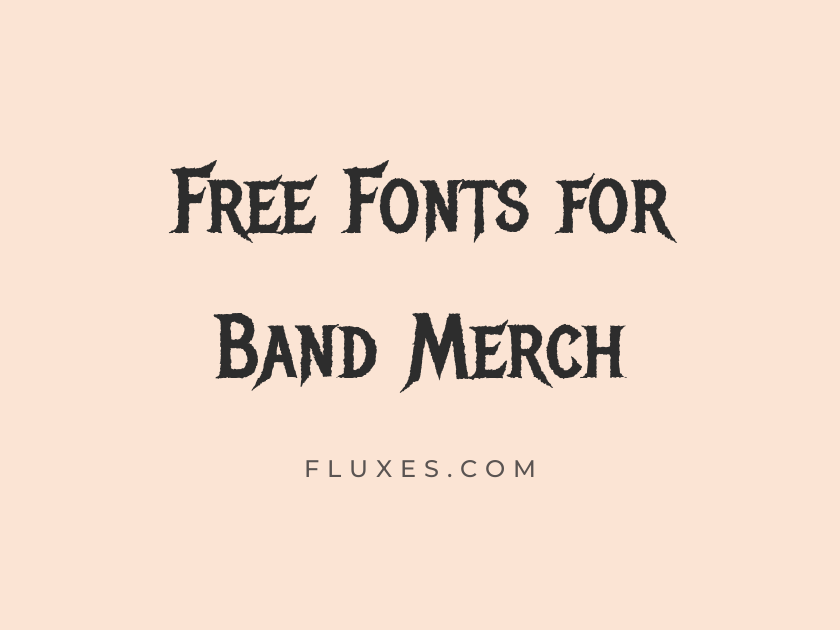
70 Best Free Fonts for Band Merch
Merch design lives or dies on typography. A killer band logo or tour tee starts with a font that can carry a mood in a single glance, whether that mood is blackened aggression, garage-rock grit, folk warmth, or neon synth nostalgia. The good news for anyone building shirts, patches, posters, and vinyl covers on a budget is that some of the best free fonts for band merch live right inside Google Fonts, ready to license for commercial use without a single dollar changing hands.
What follows is a wide sweep across genres and eras: metal and blackletter display faces, horror-movie novelty type, punk stencils, bold poster sans serifs built for band-name lockups, retro scripts for garage rock and soul revivals, handwritten faces for folk and indie acts, and futuristic display type for synth and electronic projects. Mix, match, and pull whichever fits the sound.
Metal Mania
Metal Mania earns its name honestly, with jagged, hand-lettered strokes that look scratched into a leather jacket. It works best big, bold, and alone as a band-name lockup on a shirt front rather than in body copy, where it turns muddy fast.
A genuine German blackletter revival, UnifrakturMaguntia brings old-world gothic weight to doom, black metal, and darkwave merch. It reads as authentic rather than costume-shop goth, which is exactly why so many extreme metal labels lean on blackletter in the first place.
Lighter and more decorative than a full blackletter face, Pirata One suits horror-tinged rock, gothic pop, and Halloween drop merch. Its pointed serifs photograph well on embroidered patches and enamel pins.
Eagle Lake
Eagle Lake softens blackletter into something more legible and almost romantic, a good pick for gothic-adjacent acts that want mystery without full metal intensity.
Vampiro One
Chunky, slightly cartoonish, and unmistakably Halloween-coded, Vampiro One suits horror-punk and psychobilly bands that want menace with a wink rather than played-straight dread.
Cinzel Decorative carves Roman capitals into ornate, engraved-looking letterforms, a strong match for symphonic metal, epic power metal, or any act trading in mythology and grandeur. Use it sparingly, on a title line, and let it breathe.
The plainer sibling to Cinzel Decorative, this one keeps the classical, chiseled feel but cleans up for smaller text like tour dates or tracklists on the back of a tee.
Rubik Distressed
Rubik Distressed takes a friendly geometric sans and roughs up its edges with grime and broken strokes, landing somewhere between grunge and industrial. It is a fast way to get a worn, screen-printed look without hand-distressing anything yourself.
Nosifer
Nosifer drips its letters like something out of a slasher poster, all sharp bleeding edges. It is a novelty font through and through, best reserved for horror-punk, death metal, or Halloween-season merch drops rather than everyday branding.
Creepster is the internet’s go-to spooky display face for good reason: its dripping, uneven baseline reads instantly as haunted-house type. Pair it with a limited color palette so it stays legible on a black tee instead of dissolving into texture.
Rougher and more jagged than Creepster, Butcherman leans into torn-flesh horror aesthetics that suit death metal and extreme horrorcore acts.
Eater
Eater looks gnawed at, its strokes chewed away at the edges, which makes it an oddly perfect fit for grindcore, sludge, and doom projects chasing a decayed, analog-horror feel.
Modeled on a battered manual typewriter, Special Elite brings a documentary, protest-flyer quality to punk and post-punk merch. It pairs nicely with distressed photography and works well on smaller print like set lists or zine-style inserts.
Permanent Marker looks exactly like its namesake, uneven and hand-drawn, ideal for DIY punk, skate-punk, and basement-show merch that wants to look scrawled backstage rather than designed in an office. It is loose enough to feel spontaneous but still fully legible at t-shirt scale.
A scratchier, more chaotic cousin to Permanent Marker, Rock Salt suits garage and lo-fi punk bands that want their type to look as raw as their recordings.
This military stencil face brings a hardcore, tactical edge that works well for hardcore, metalcore, and industrial merch. Stencil type also happens to be genuinely easy to screen print, which is a practical bonus for anyone actually producing shirts.
For embroidered patches and pins, favor simpler shapes with fewer thin strokes; scripts like Sacramento or Great Vibes need to be sized up generously to survive stitching.
Between blackletter menace, punk grit, Western nostalgia, and neon synth futurism, there is enough free range here to build a distinct visual identity for almost any band, at any budget. Download a handful, mock them up over real artwork, and let the sound of the music guide which letterforms actually earn a spot on the merch table.